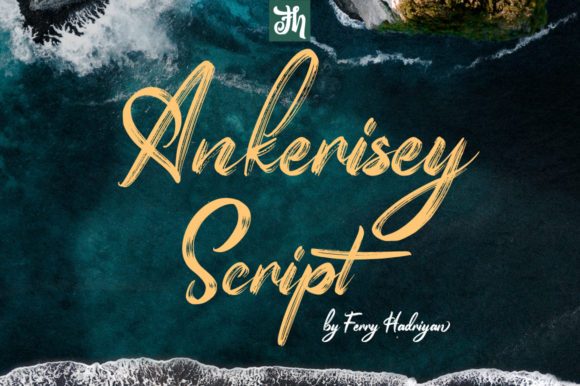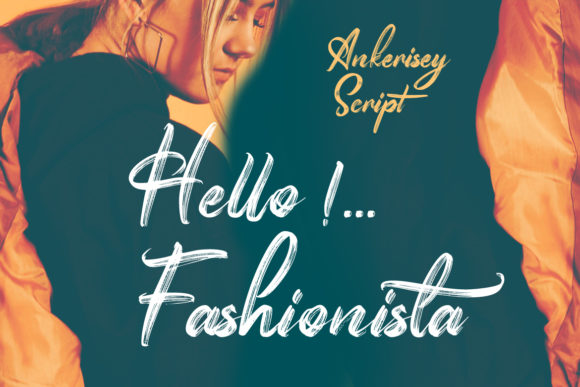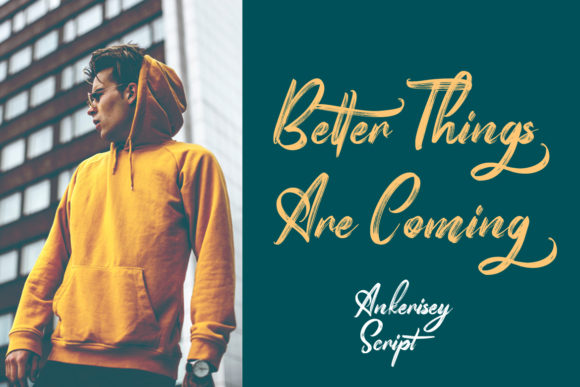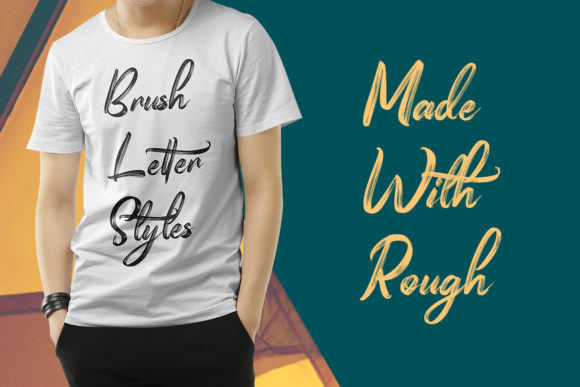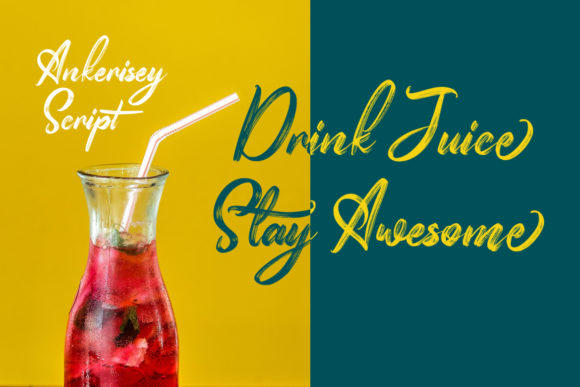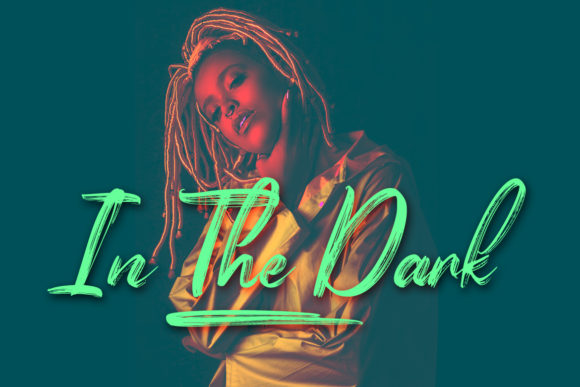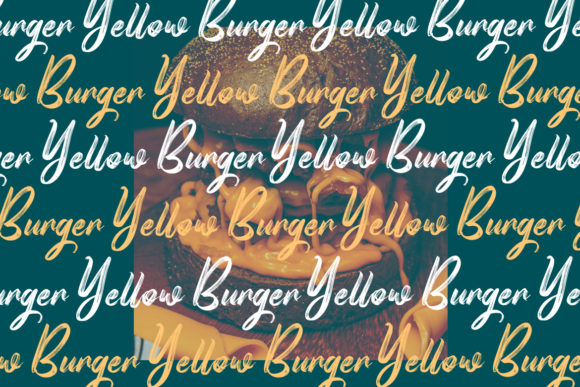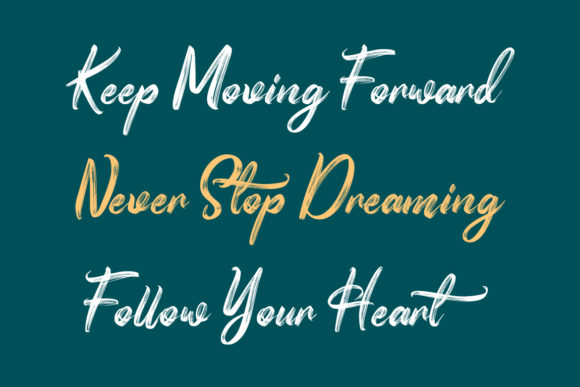
About Ankerisey Font
Ankerisey is a casual, fun handwritten font, created by using a brush pen. This font will look outstanding in any context, whether itβs being used on busy backgrounds or as a standalone headline!